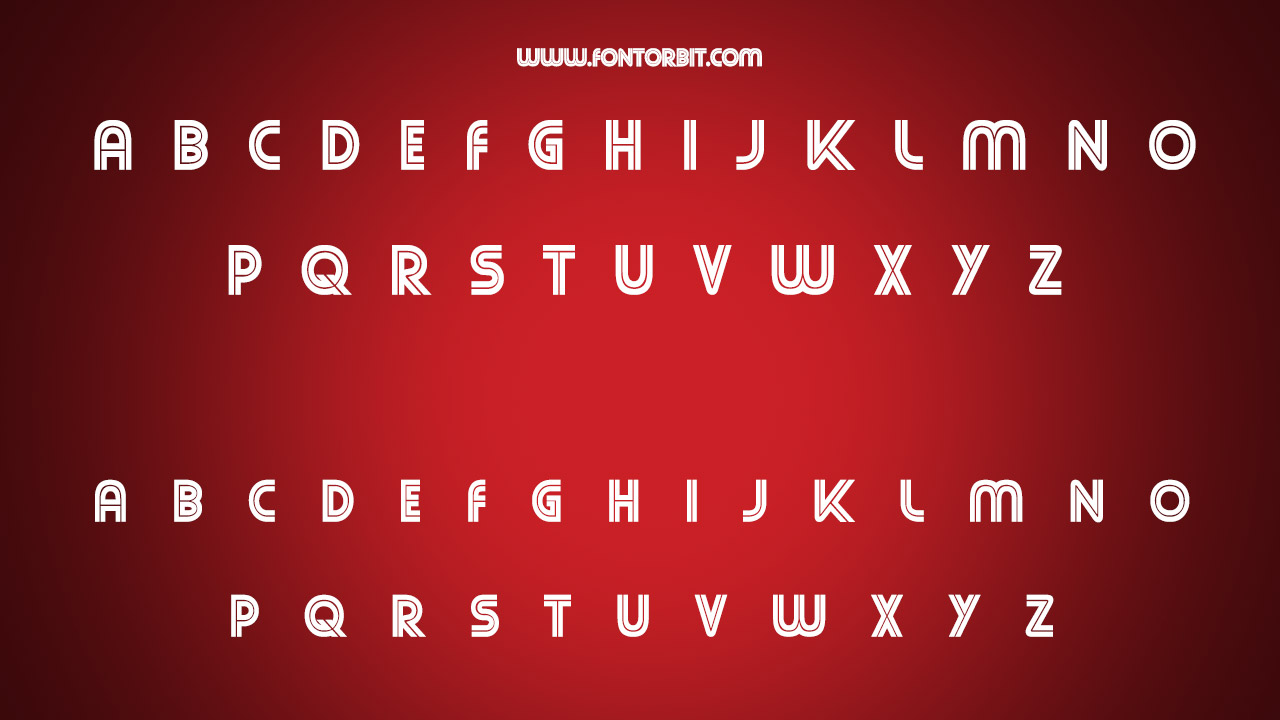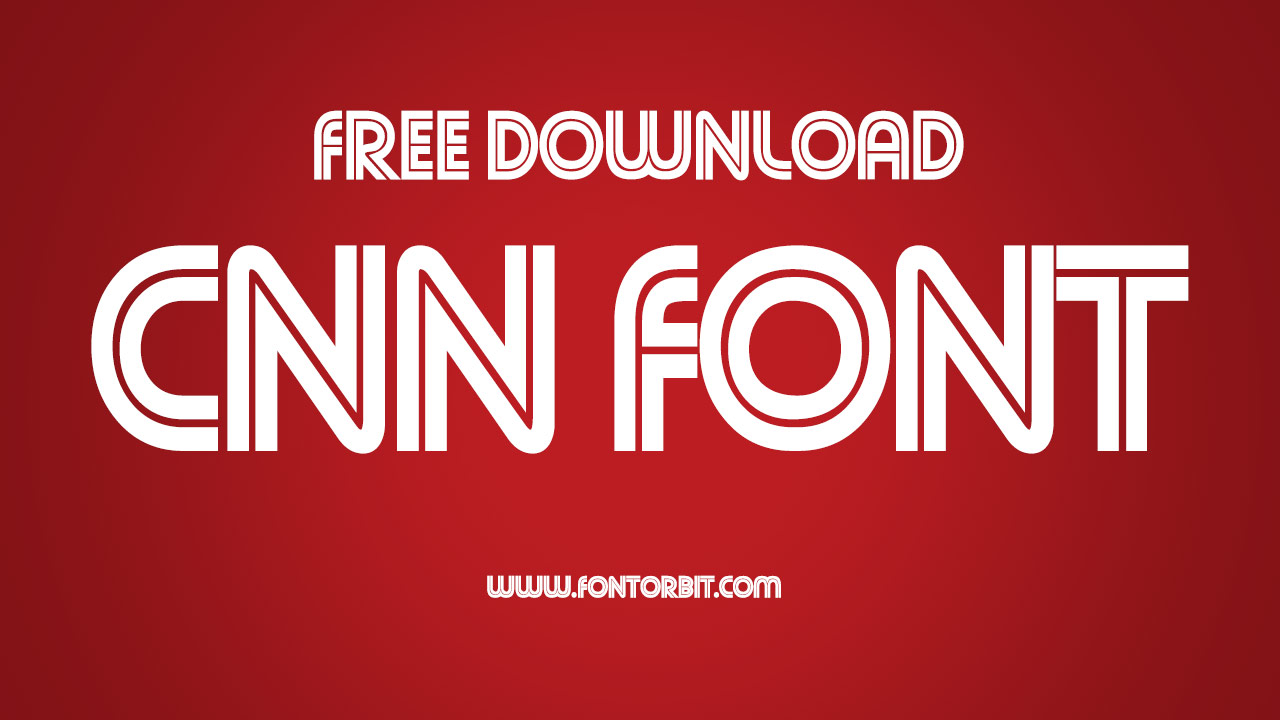
The CNN Font, designed by Ray Larabie, is a distinctive typeface inspired by the iconic CNN logo. This font captures the essence of the logo’s design, which features the letters “C,” “N,” and “N” in vivid red with a unique white line running through the middle. Created to emulate the logo’s style, the CNN Font is perfect for projects that require a bold and recognizable appearance
You can use the CNN Regular font to create striking text that mirrors the CNN logo’s distinctive style. It is ideal for brand-related materials, media projects, promotional graphics, and any design that benefits from a high-impact, recognizable font. The CNN Font is well-suited for:
- Brand and promotional materials
- Media and news-related graphics
- High-impact titles
- Logo design
- Social media visuals
The CNN Font, created by Ray Larabie, provides a compelling typeface that closely resembles the CNN logo’s design. Its bold, dynamic style makes it valuable for creating impactful and recognizable text. The font’s distinctive characteristics help in maintaining brand identity and enhancing visual appeal.
1.What Are The Advantages Of Using The CNN Font Over Other Fonts?
The CNN Font offers a recognizable and bold design that aligns with the iconic CNN logo, making it perfect for brand consistency and high-impact visuals.
2.What Are The Color Options Available For The CNN Font?
The font itself is monochrome; you can apply color through design software or text editors to match your project’s needs.
3.What Are The Recommended Font Pairings For The CNN Font?
Pair with clean, modern fonts like Helvetica or Arial to complement the bold, distinctive style of the CNN Font.
5.What Is The History Of The CNN Font?
The designers created the CNN Font to replicate the style of the CNN logo, which has been popular in various media and branding applications.
6.What Type Of Font Is CNN Font?
It is a display typeface designed to emulate the bold and distinctive style of the CNN logo.